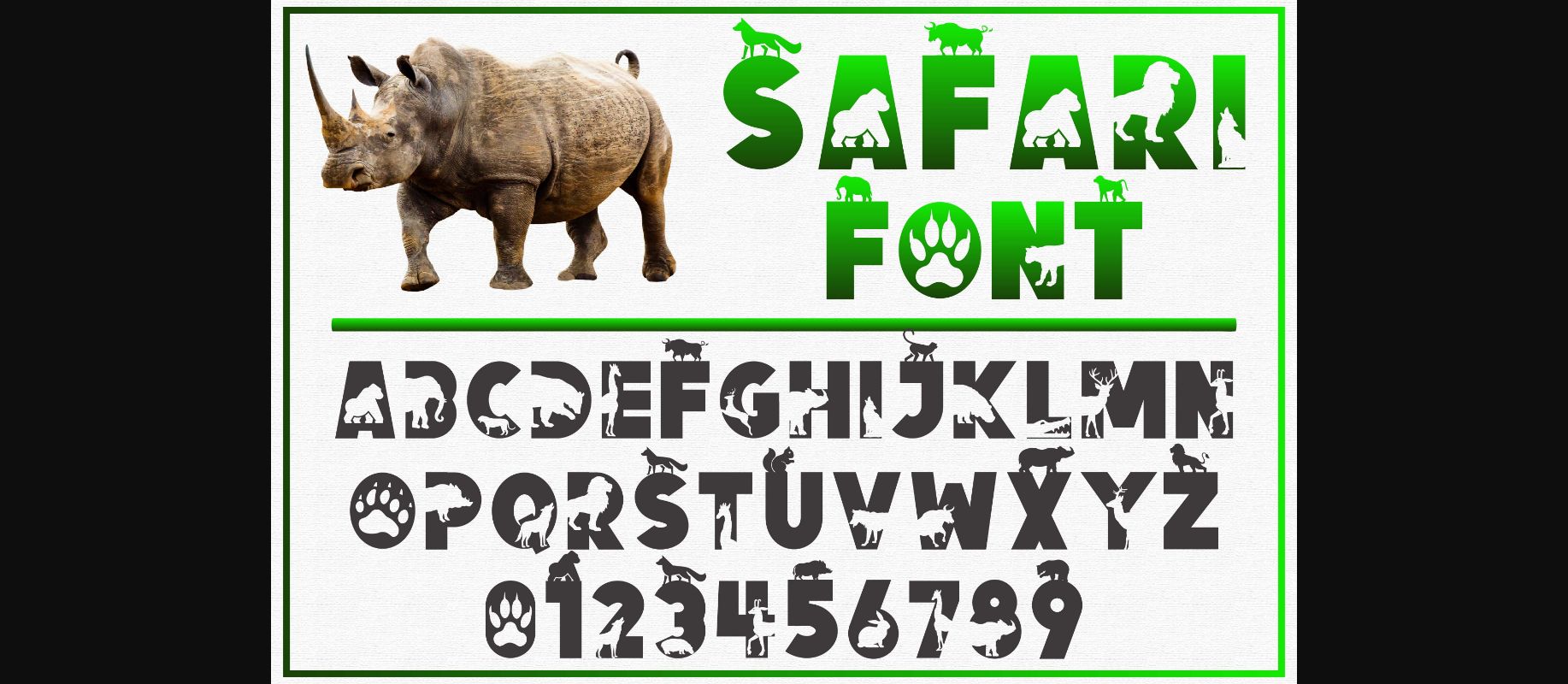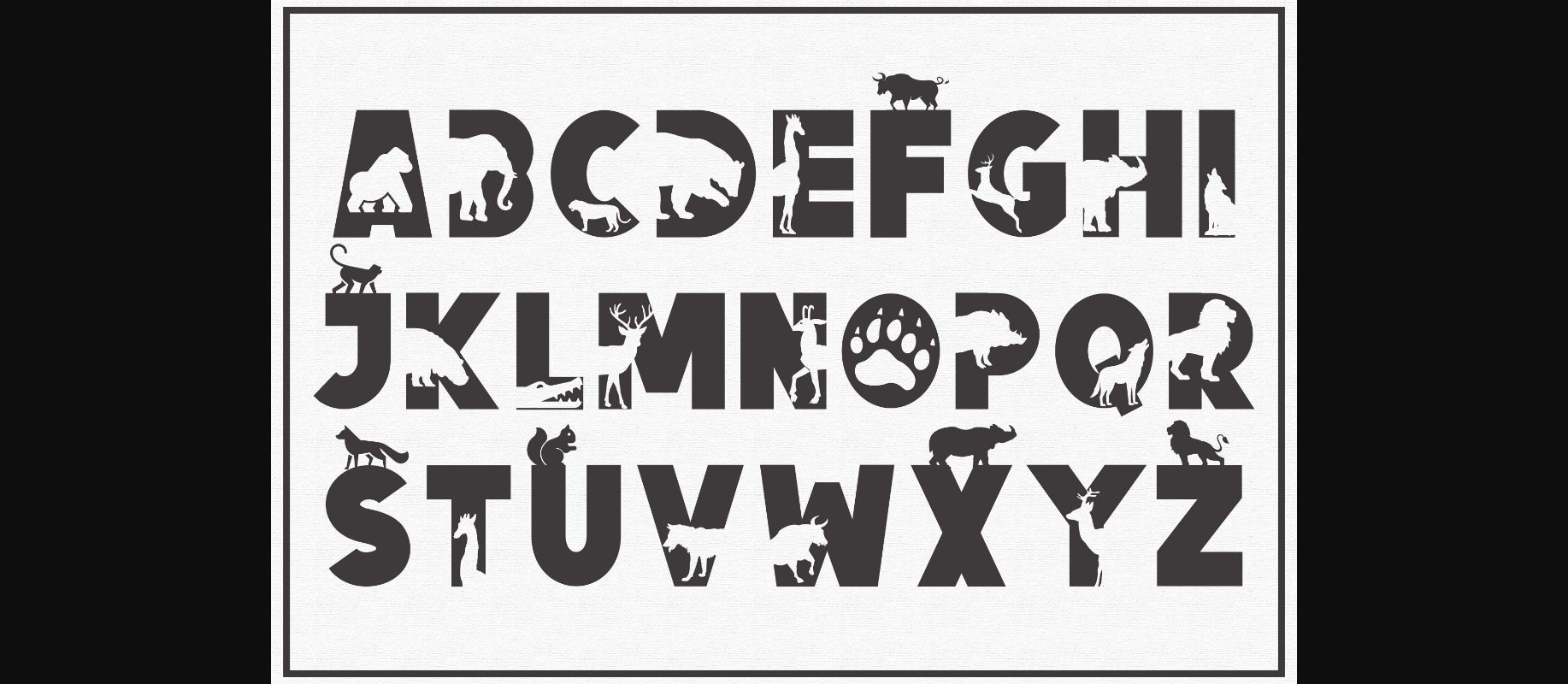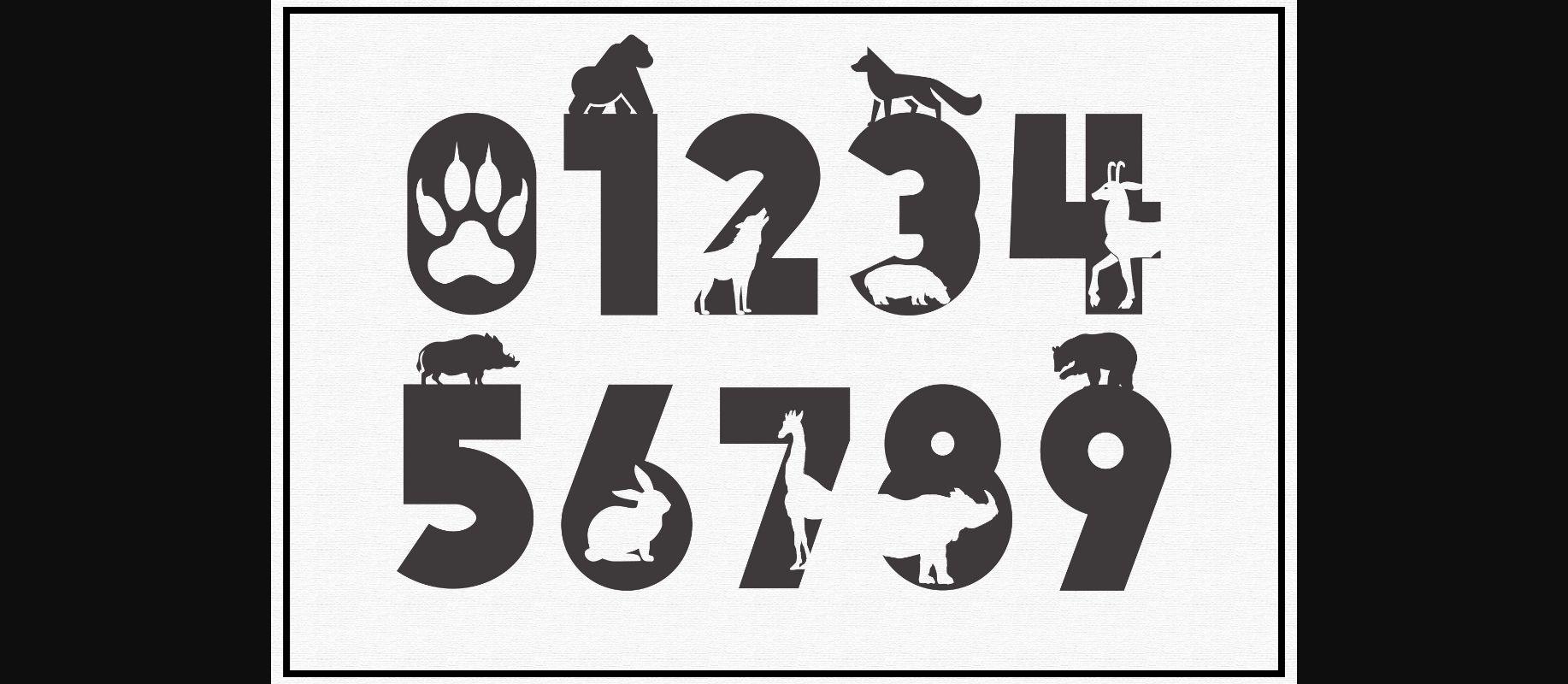
Safari Font
About Safari Font
Safari features a playful range of sweet safari-themed ornaments like elephants, snakes, or zebras, in each letter that gives this unique display font an adventurous and cute feel. Get inspired by its unique charm, and turn any design idea into a true standout!